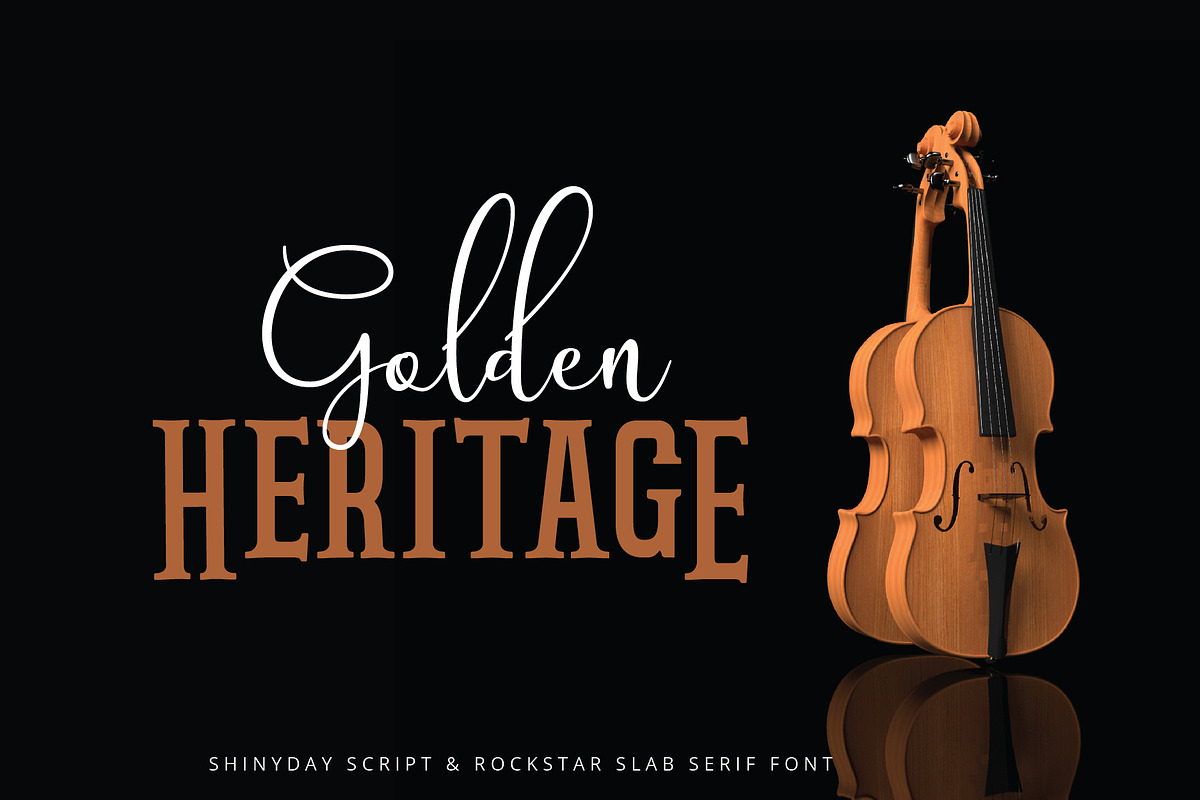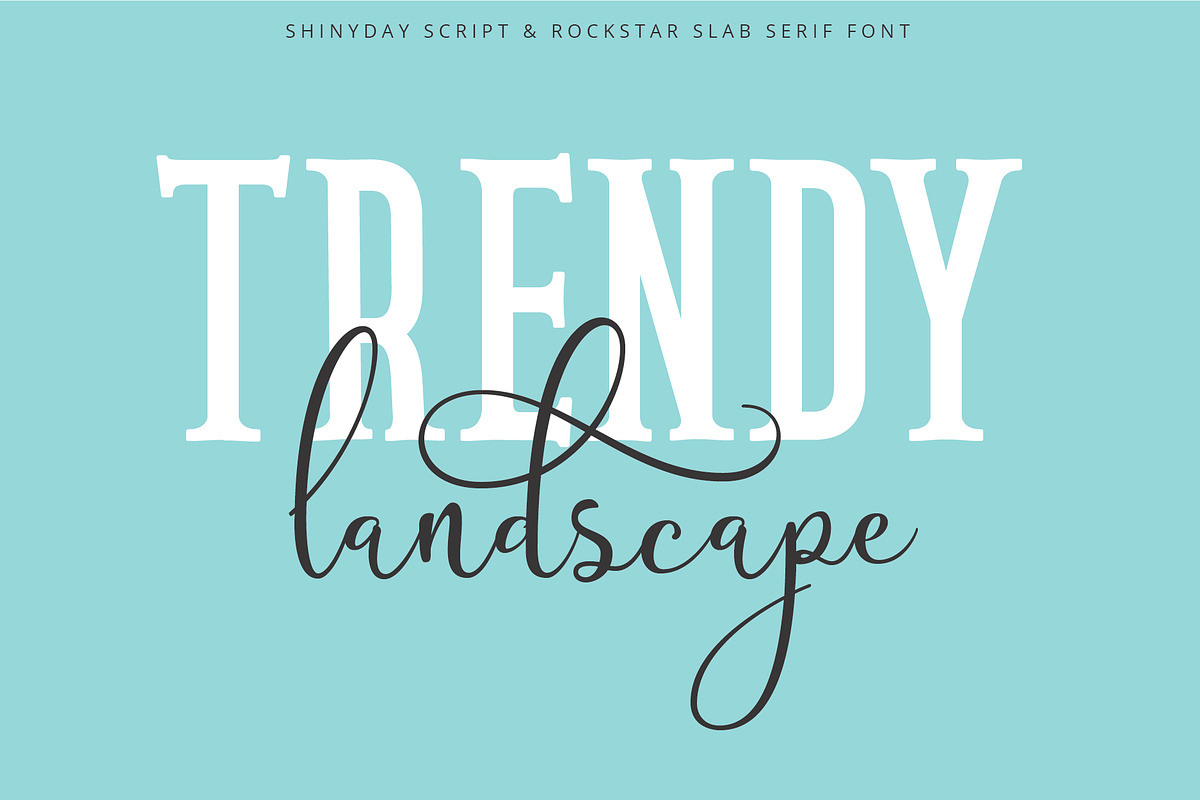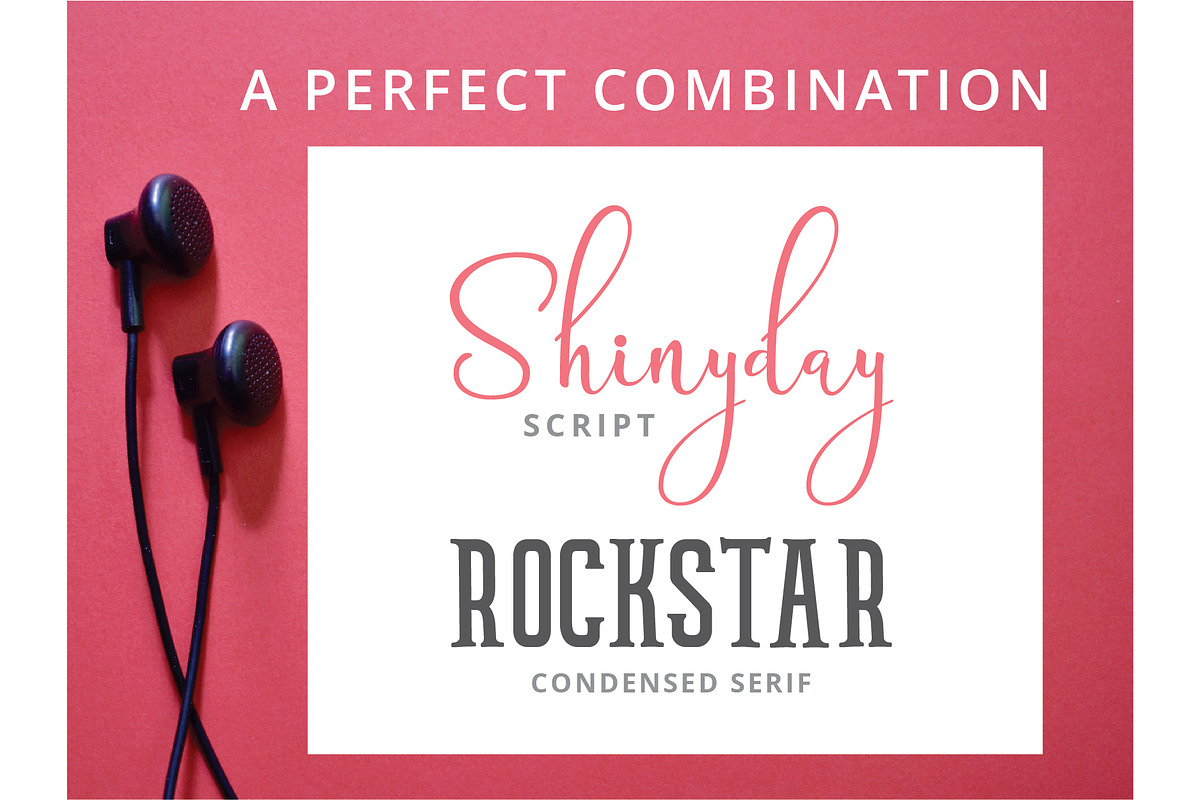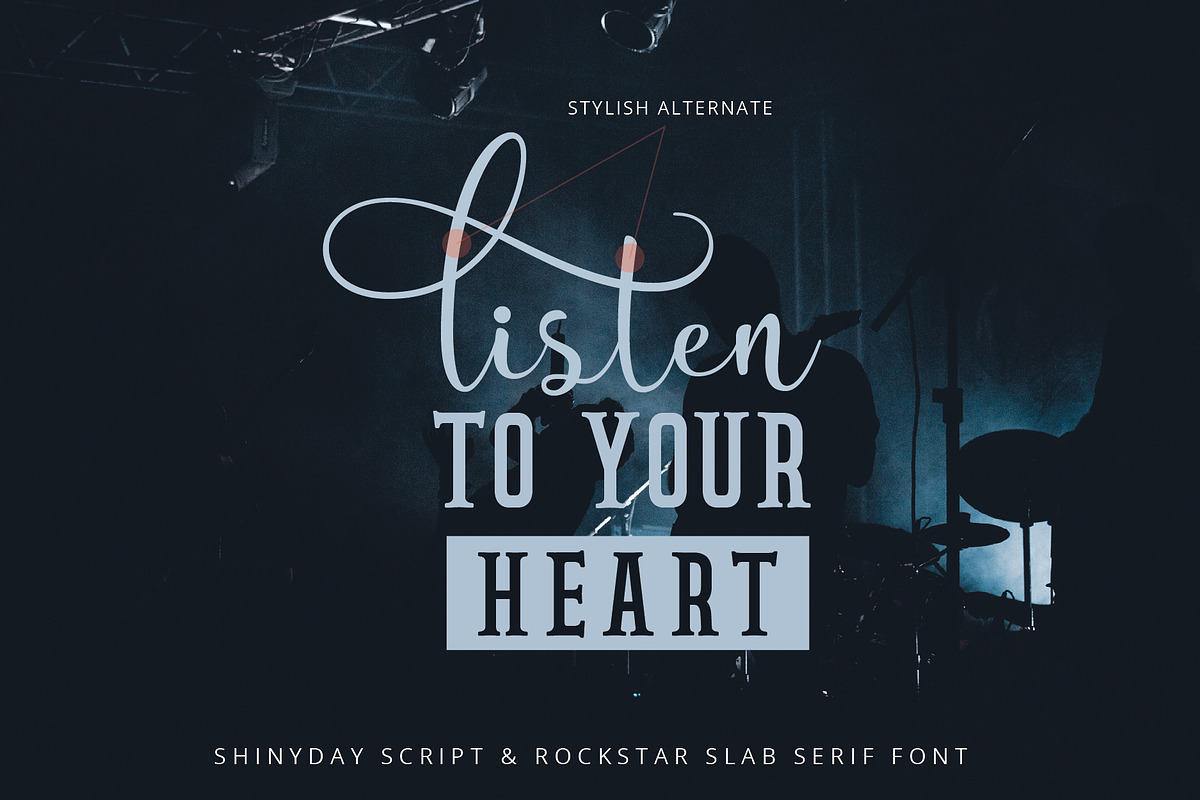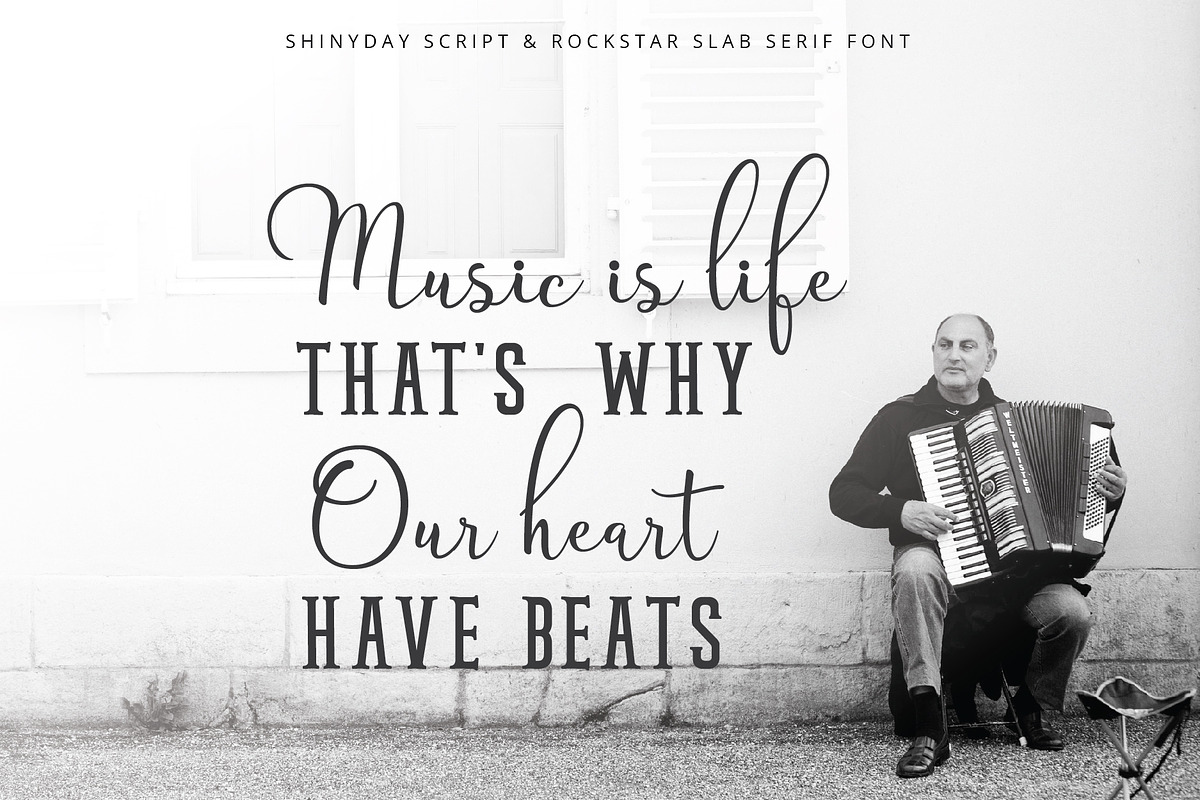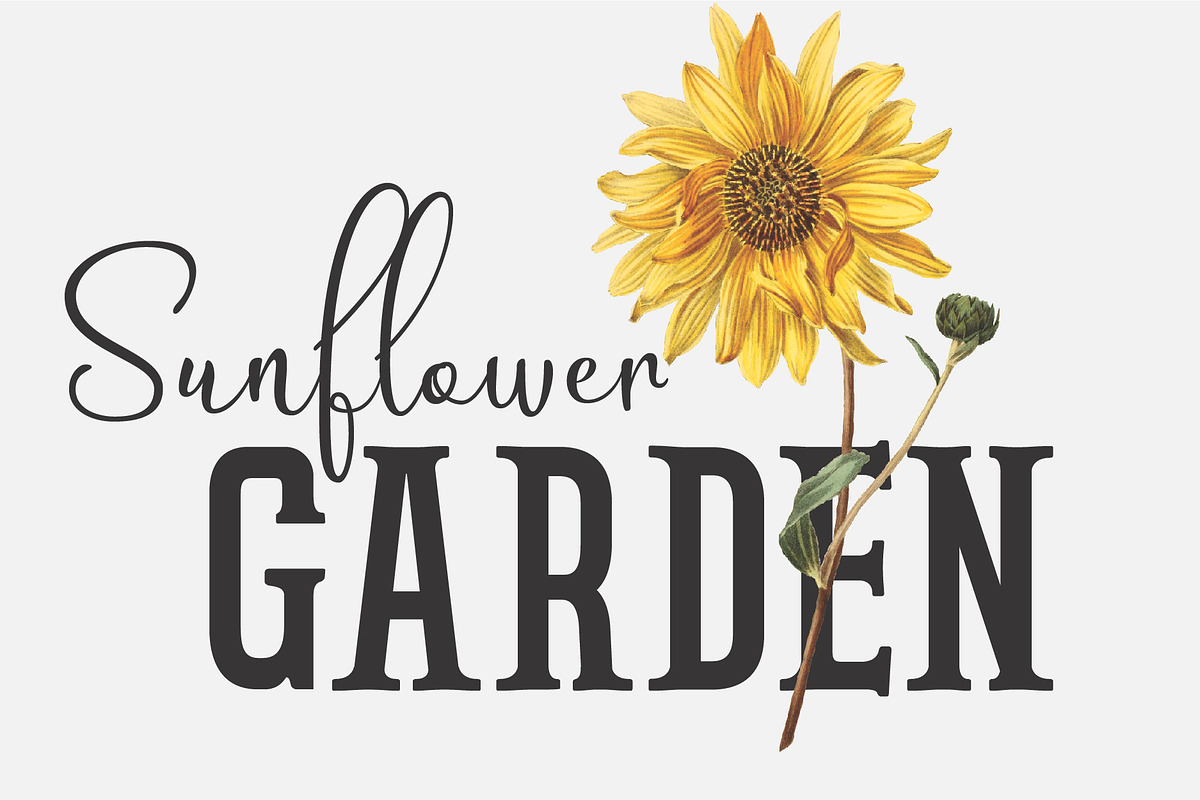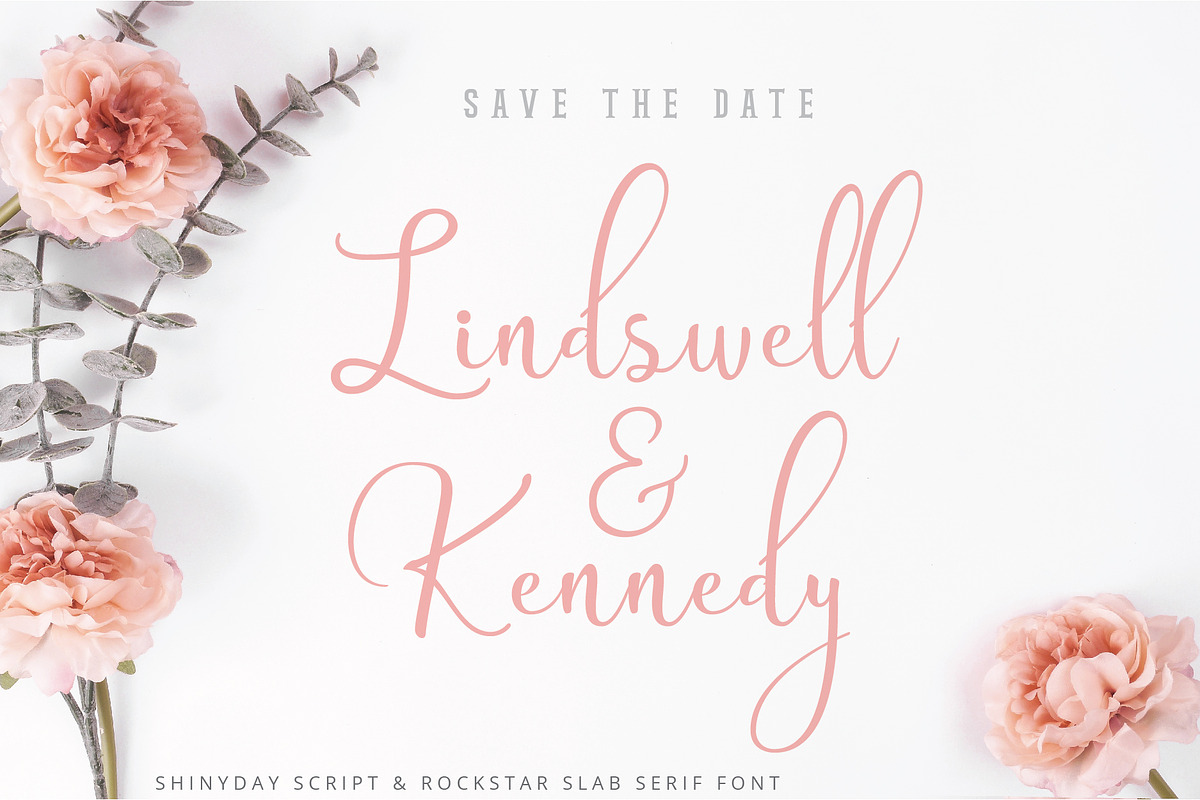
Shinyday & ROCKSTAR font duo
Shinyday is a fashionable and elegant script font, with some sweet stylish alternates. It has feminine taste but also high-end quality Combined with ROCKSTAR, a condensed slab serif font. Like its name, this font is strong and has spirit young.This duo combination is perfect for tittle, display, poster, blogging, girly and feminine theme, social media, branding and more.
- Shinyday is a fashionable and elegant script font, with some sweet stylish alternates.